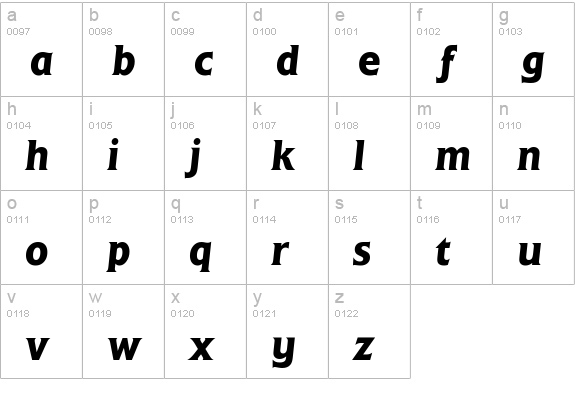
Frascati-Medium-Italic is a balanced, medium-weight, italic variant in the Frascati typeface family \xE2\x80\x94 well suited to sub-headlines, navigation, and balanced editorial work.
Frascati Medium Italic font is a stylish and versatile typeface that exudes elegance and sophistication. With its sleek curves and balanced strokes, this font is perfect for adding a touch of sophistication to any design project. Whether you're creating a wedding invitation, a logo, or a branding project, Frascati Medium Italic font will elevate your design to the next level. What makes Frascati Medium Italic font even more appealing is that it is available for free download at FontsMarket.com. This means you can easily access this high-quality font without any cost, making it a valuable addition to your font collection. Don't miss out on the opportunity to enhance your designs with the timeless beauty of Frascati Medium Italic font – download it for free today!